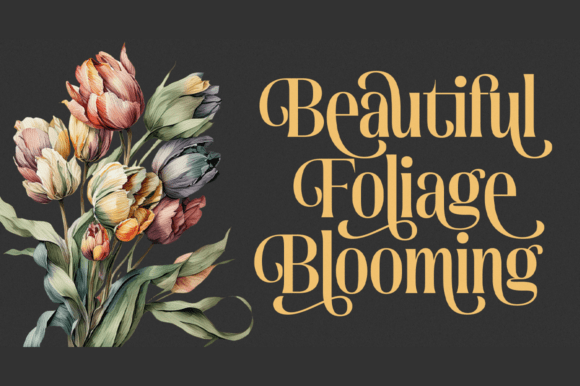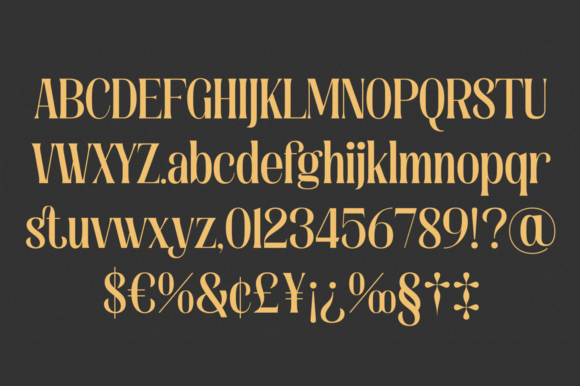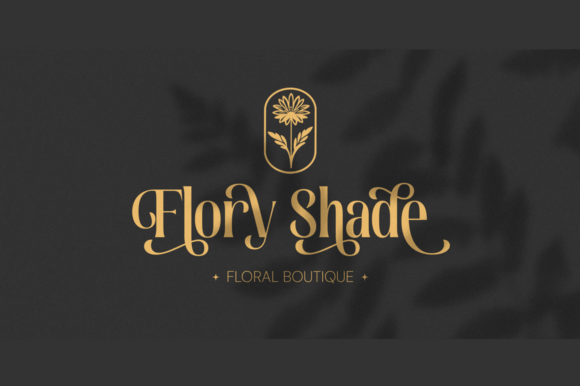
Introduction to Mariskha Font
introducing our new β€œMariskha” Modern Ligature with Elegant Style this is perfect for branding, logos, invitation, masterheads and more.
Key Features of Mariskha Font
Why Choose Mariskha Font?
Mariskha Font offers exceptional quality and versatility, making it a valuable addition to your design toolkit. Whether you’re creating for personal projects or commercial use, Mariskha Font delivers professional results.